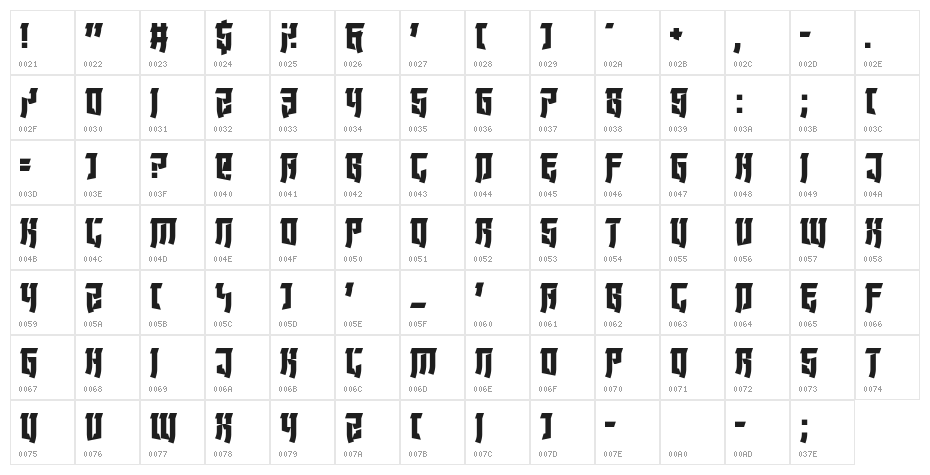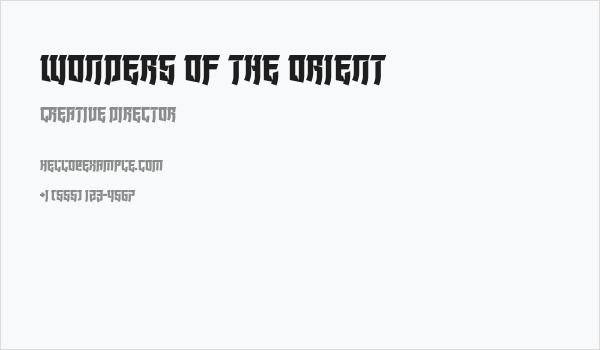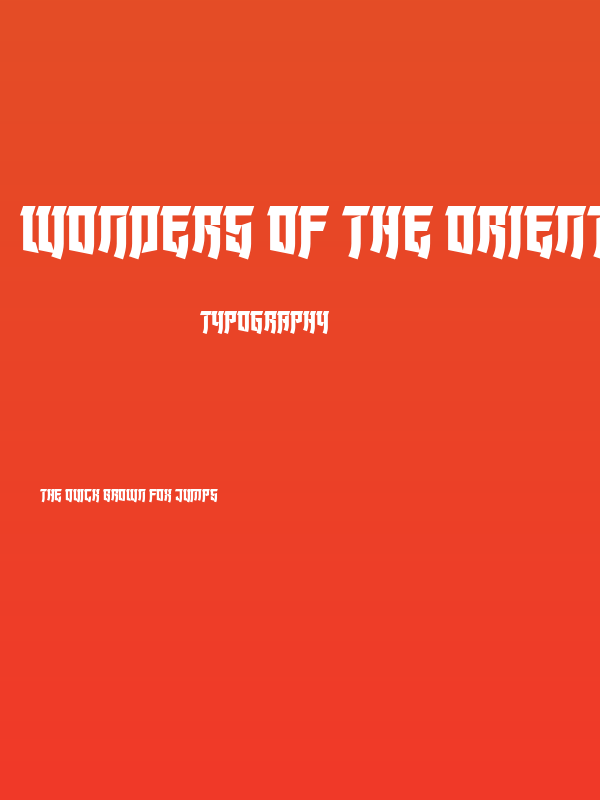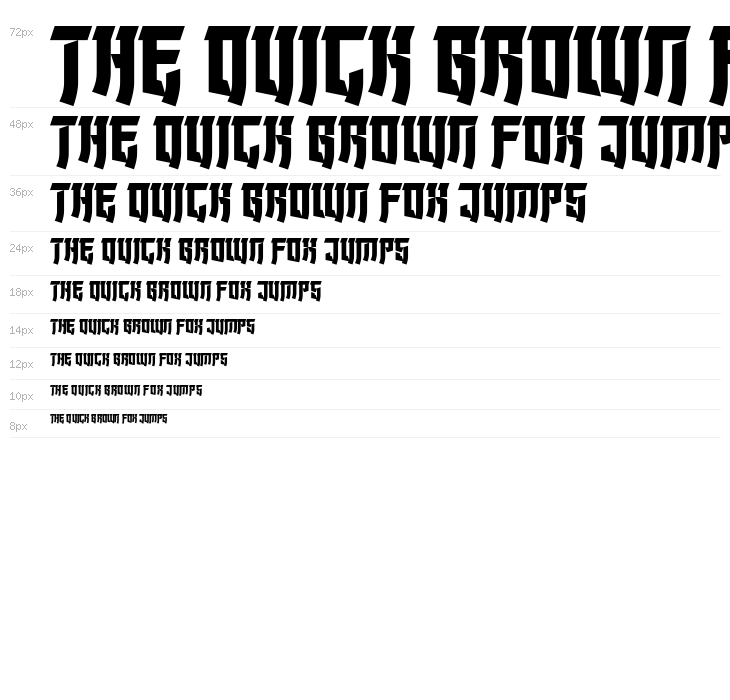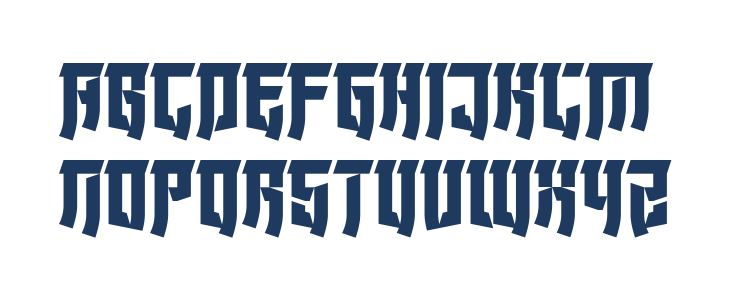
Wonders of the Orient Font
Wonders of the Orient Description
This font features a bold and striking design with sharp, angular edges and a strong geometric influence. The characters are highly stylized, with a distinct emphasis on vertical and horizontal lines, creating a sense of strength and stability. The uppercase letters are particularly prominent, with a uniform height and width that gives them a commanding presence. The lowercase letters maintain the same angular style, ensuring consistency throughout the typeface. Numbers and special characters are also designed with the same bold, angular aesthetic, making them easily recognizable and visually cohesive with the rest of the font. This font is ideal for projects that require a bold and impactful visual statement.